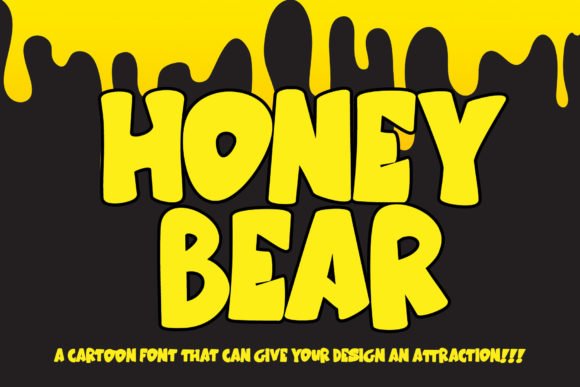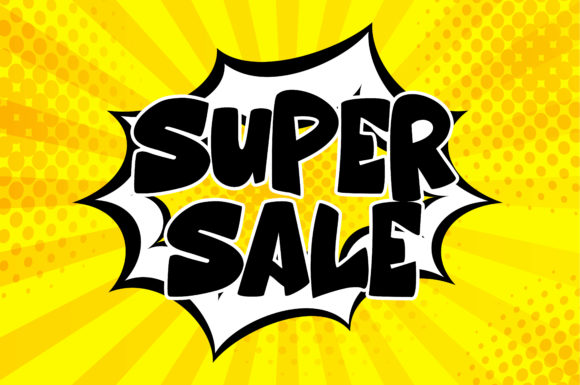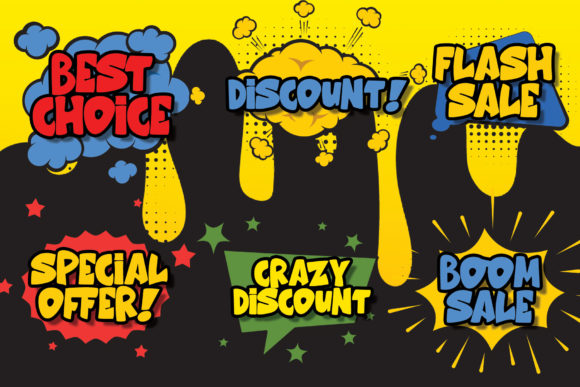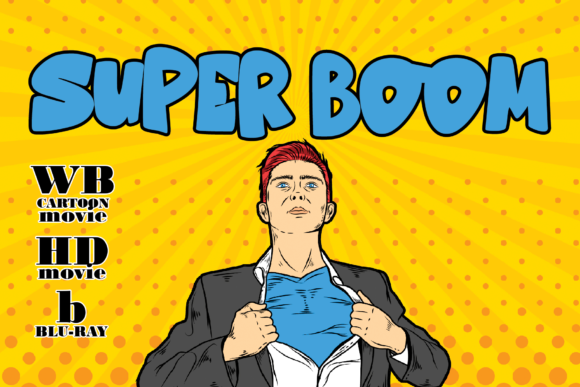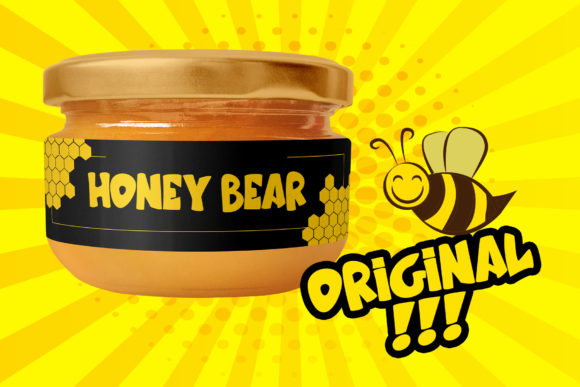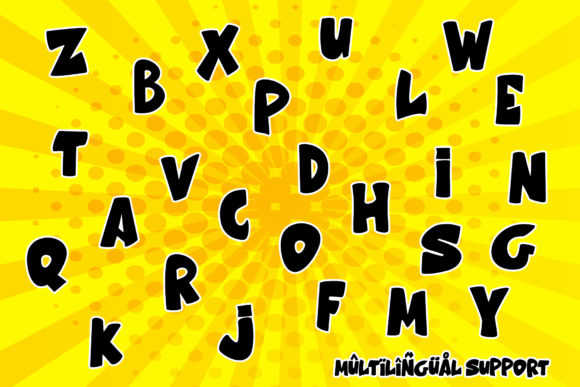
Get Ready to Sweeten Up Your Designs
Do you ever get stuck in a creative rut, staring blankly at your screen as the clock ticks away? I know I do. But sometimes, all it takes is a spark of inspiration to set our imaginations ablaze. For me, that spark was discovering the adorable Honey Bear Font.
This charming display font is a masterclass in whimsy and playfulness, its cartoon-like aesthetic guaranteed to put a smile on your face. And that’s exactly what makes it so valuable for designers – its ability to add a touch of personality and fun to even the most mundane designs. With Honey Bear Font, you can create eye-catching headings, quirky illustrations, and captivating visual identities that will leave a lasting impression on your audience.
Honey Bear Font Key Features
- Font Family: Honey Bear Font
- Unique Characteristics: The font features a playful, handwritten style with a mix of rounded and pointed letters, making it perfect for creative and whimsical designs
Honey Bear Font Review
As a designer, I was excited to dive into the world of Honey Bear Font. Upon initial inspection, I was immediately drawn to its playful and whimsical vibe. ✨ The rounded edges and friendly feel make it perfect for children’s books, greeting cards, and other projects that require a touch of warmth and approachability. ✨
- It’s incredibly versatile, working well in both print and digital formats.
- The font is highly customizable, allowing users to adjust the size, color, and spacing to suit their needs.
- Honey Bear Font is also surprisingly legible, even at small font sizes.
However, there are a few limitations to consider. ⚠️ One major drawback is that the font may not be suitable for professional or corporate projects, as it may come across as too playful or immature. ⚠️ Additionally, the font may not be compatible with all operating systems or devices, which could lead to inconsistencies in the final product.
Overall, I would give Honey Bear Font 4 out of 5 stars. While it’s not the most versatile font in the world, it’s certainly a great choice for projects that require a touch of whimsy and personality. With a bit of creative guidance, Honey Bear Font can add a warm and inviting touch to any design.
Tips for Getting the Most Out of Honey Bear Font
1. Experiment with different font sizes and colors to create a unique look.
2. Combine Honey Bear Font with other fonts for a layered, eclectic feel.
3. Use Honey Bear Font for headings and titles to create visual interest.
Honey Bear Font is perfect for:
1. Children’s book illustrations and design.
2. Food and beverage branding.
Alternatives to Honey Bear Font
The Great Vibes Font is a playful, handwritten script font that is perfect for creating a friendly and approachable atmosphere. It’s ideal for use in branding, advertising, and social media graphics. This font has a similar feel to Honey Bear Font, but with a more elegant and refined touch.
The Pacifico Font is a beautiful, modern script font that exudes a sense of relaxation and calmness. It’s perfect for use in packaging design, wedding invitations, and other projects where a soft, elegant feel is desired. Compared to Honey Bear Font, Pacifico has a more subtle and sophisticated look.
The Alex Brush Font is a elegant, handwritten script font that is perfect for use in high-end branding, advertising, and editorial design. It has a similar feel to Honey Bear Font, but with a more refined and sophisticated touch. This font is ideal for use in projects where a sense of luxury and elegance is desired.
The Dancing Script Font is a playful, handwritten script font that is perfect for creating a fun and energetic atmosphere. It’s ideal for use in branding, advertising, and social media graphics. Compared to Honey Bear Font, Dancing Script has a more dynamic and expressive feel.